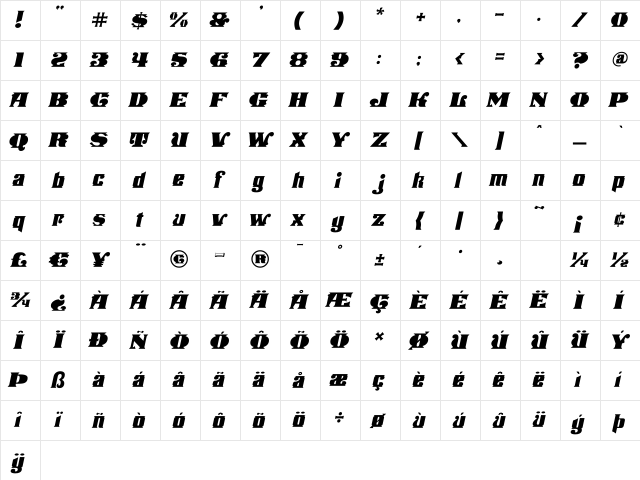
Complete Stampede Open Italic Fill Regular glyph index. Displaying only characters natively supported by Stampede Open Italic Fill Regular font.
Stampede Open Italic Fill borrows the utilitarian aesthetic of stencil lettering, with its characteristic cutaways and no-frills construction lending an industrial edge. The slanted form adds forward momentum and visual energy.
Pro Tip: Use Stampede Open Italic Fill at large sizes on packaging, posters, or apparel where the stencil cutaways read clearly. Avoid small sizes where those gaps become visual noise.